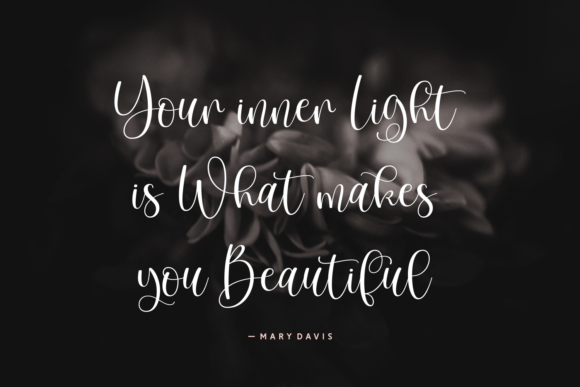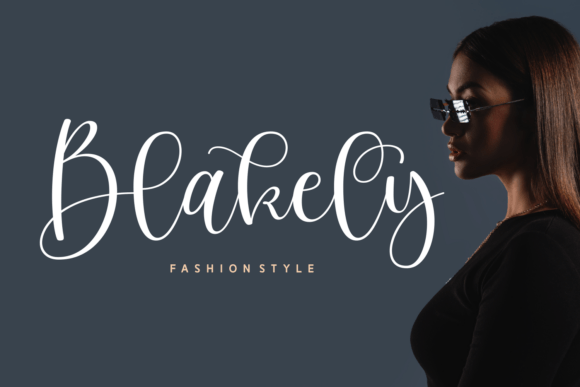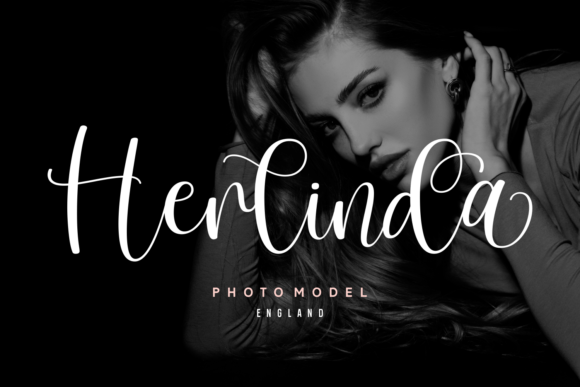
The Enchanting Achilda Font: A Designer’s New Best Friend
I still remember the time I was working on a wedding invitation project, and my client asked for a font that was elegant, yet playful. I scoured the internet, trying out font after font, but nothing seemed quite right. That was until I stumbled upon Achilda Font. Its beautiful, flowing letters immediately caught my eye, and I knew I had found the perfect fit. In this article, I’ll share my experience with Achilda Font, its features, and how to make the most of it in your designs.
An Honest Review of Achilda Font
- ✨ Elegant and stylish look that’s perfect for invitations, greeting cards, and more
- ✅ Easy to read, even in smaller sizes
- 💫 Beautiful flowing letters that add a touch of charm to any design
- 🎨 Highly versatile and can be used for a variety of design projects
While Achilda Font is an excellent choice for many design projects, there are a few things to keep in mind:
- ⚠️ Some letters may not be suitable for body text, as they can be quite ornate
- 🤔 Limited availability of certain characters, such as ligatures
The Story Behind Achilda Font
Achilda Font was created by a talented type designer who wanted to craft a font that would add a touch of elegance to any design. Inspired by traditional calligraphy, Achilda Font features beautiful, flowing letters that are both easy to read and visually stunning. The designer’s goal was to create a font that would be perfect for invitations, greeting cards, and other designs that require a touch of charm.
Q: Is Achilda Font suitable for body text?
A: While Achilda Font is easy to read, it’s best suited for headings and titles rather than body text. Its ornate letters can be overwhelming in larger blocks of text.
Q: Does Achilda Font come with OpenType features?
A: Yes, Achilda Font features OpenType features, such as ligatures and stylistic alternates, that can enhance your text and add more flair to your designs.